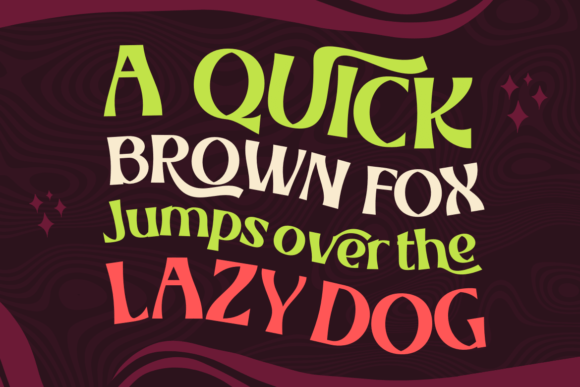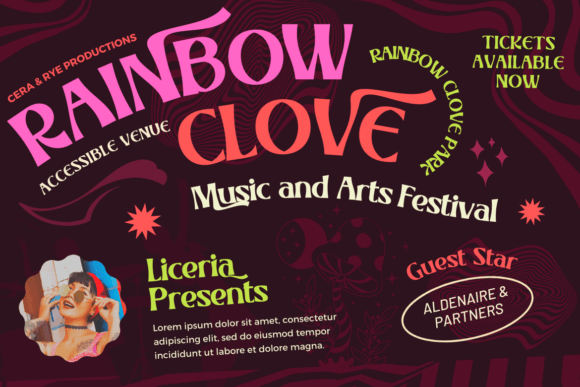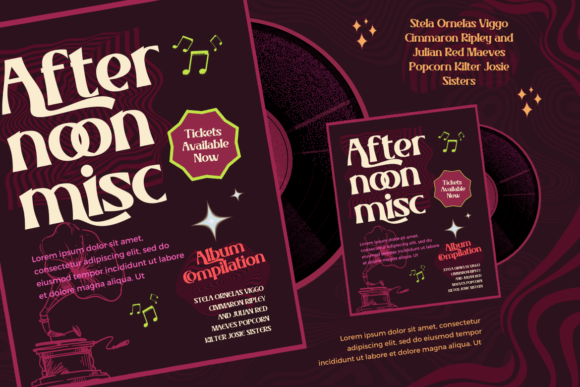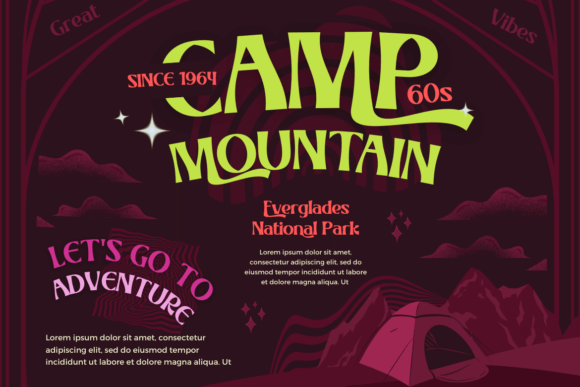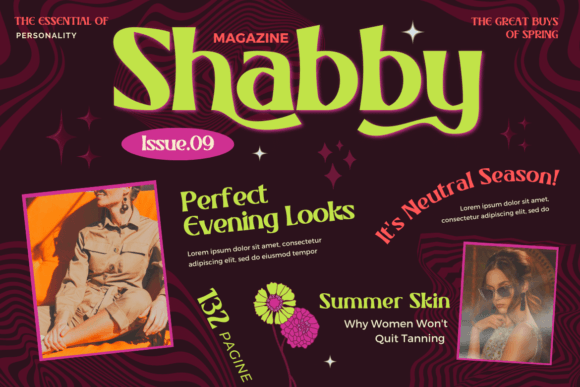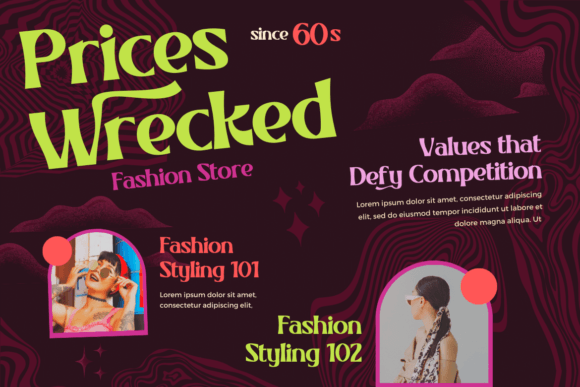
Introduction to Rhelax Font
Have you ever found yourself stuck in a design rut, searching for that perfect font to elevate your creative project to the next level? As designers, we’ve all been there – pouring over font libraries, trying to find that elusive combination of style and sophistication. But what if I told you there’s a game-changing font out there, waiting to be discovered? Say hello to the Rhelax Font, a luxurious and modern typeface that’s about to revolutionize your design workflow.
With its subtle and elegant style, the Rhelax Font is the perfect addition to any design resource. Whether you’re working on a high-quality logo, a brochure, or even a free download template, this font is sure to add a touch of class and sophistication. And with its wide selection of alternate ligatures and fonts, you’ll have endless possibilities to create a custom style that’s uniquely yours.
Key Features of Rhelax Font
- Unique, modern design that adds a touch of elegance to any creative project
Honest Review: Rhelax Font
The Rhelax Font is incredibly versatile, making it suitable for a wide range of design applications. It’s perfect for creating eye-catching headlines, adding a touch of elegance to your layouts, or even using it as a creative element in your designs. ✨
- High-quality design: The Rhelax Font is meticulously crafted with a focus on detail, resulting in a truly professional-looking font.
- Limited character set: While the font is incredibly versatile, it’s limited to a specific character set, which might not be ideal for designers who need a wider range of characters.
- Not suitable for body text: While the font is perfect for headlines and creative elements, it’s not the best choice for body text, as it can be a bit too ornate.
Overall, the Rhelax Font is an excellent addition to any designer’s toolkit. While it has its limitations, its high-quality design, transparent background, and free download make it a must-have for any creative project.
Tips for Getting the Most Out of Rhelax Font
Rhelax Font is ideal for use in creative projects such as logos, brochures, and social media graphics.